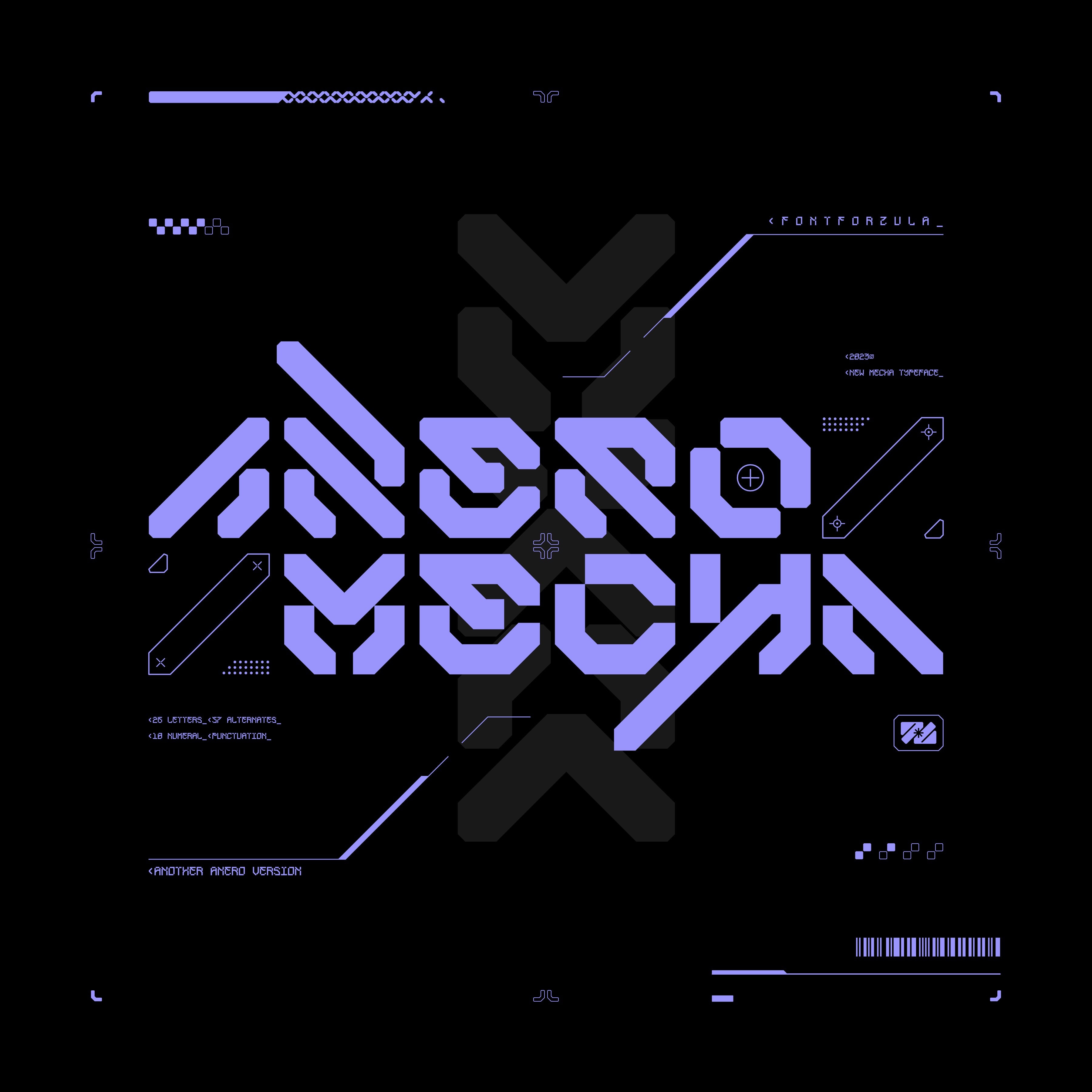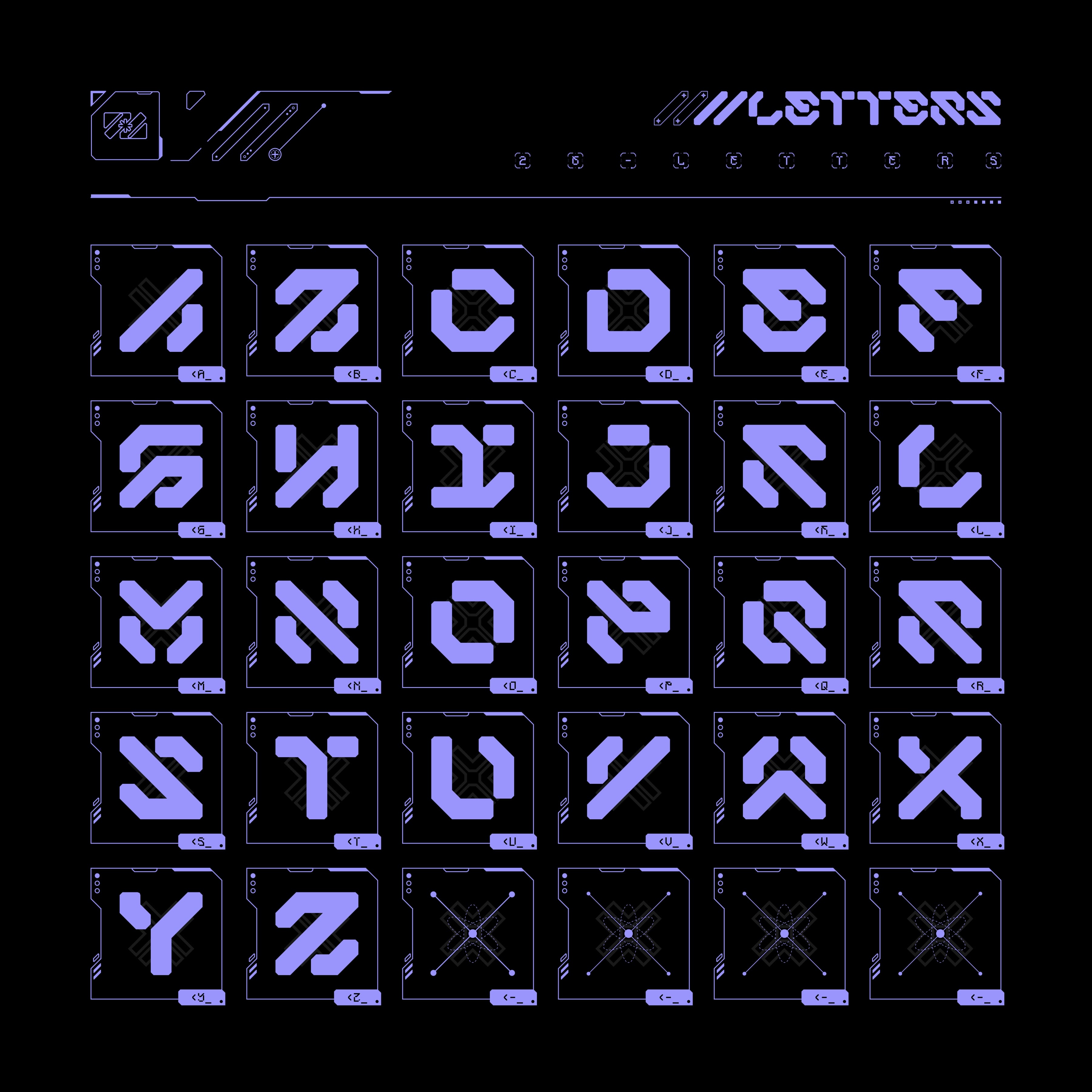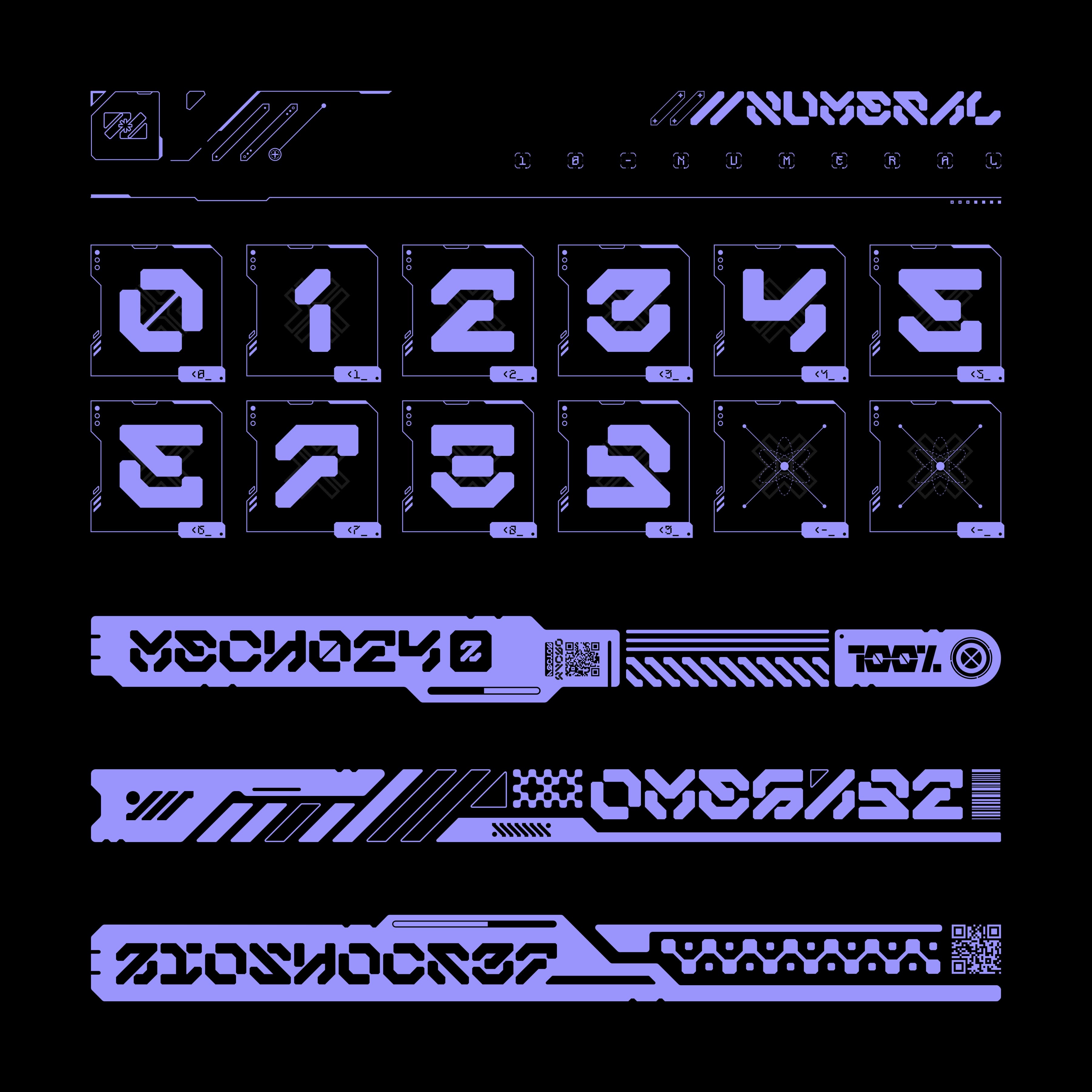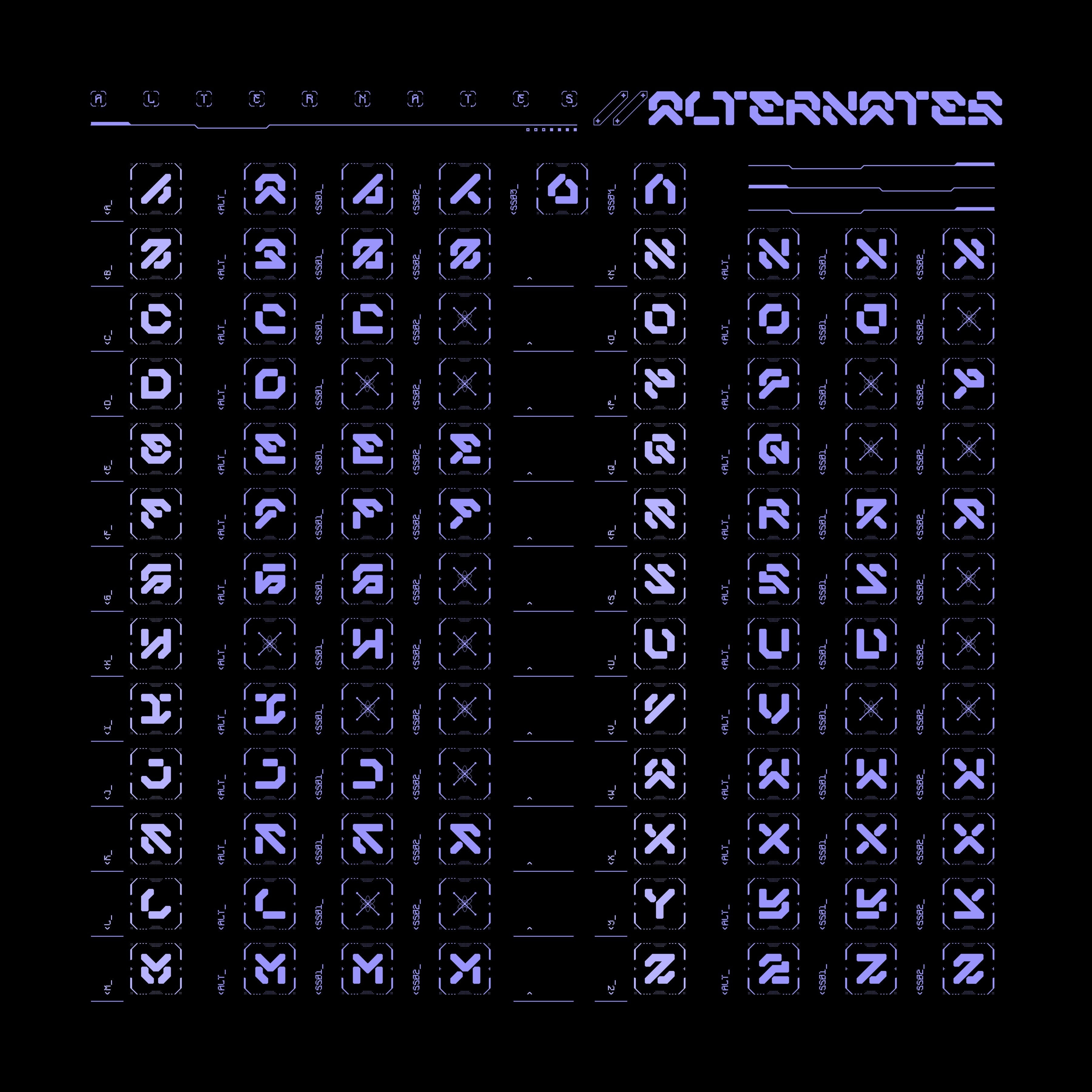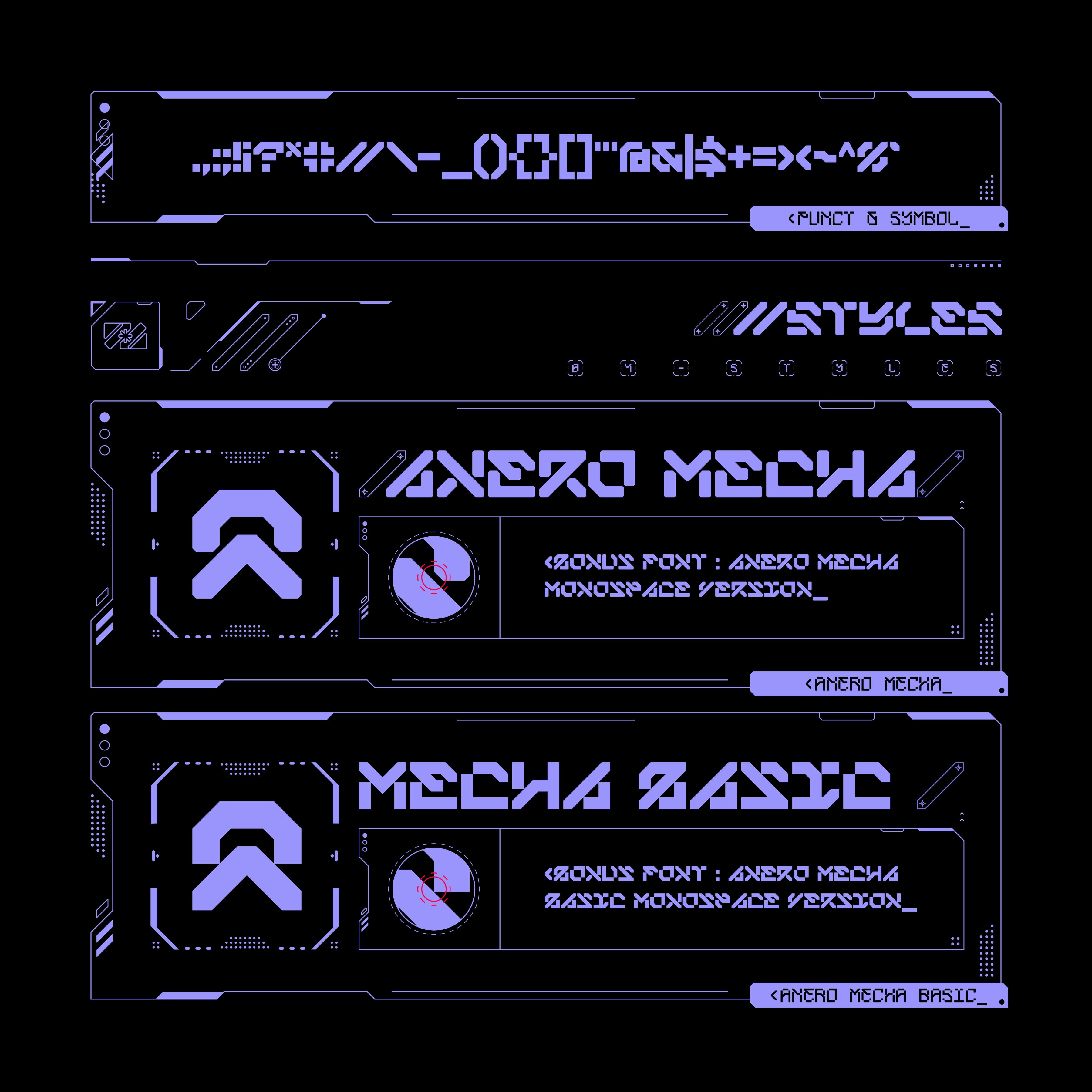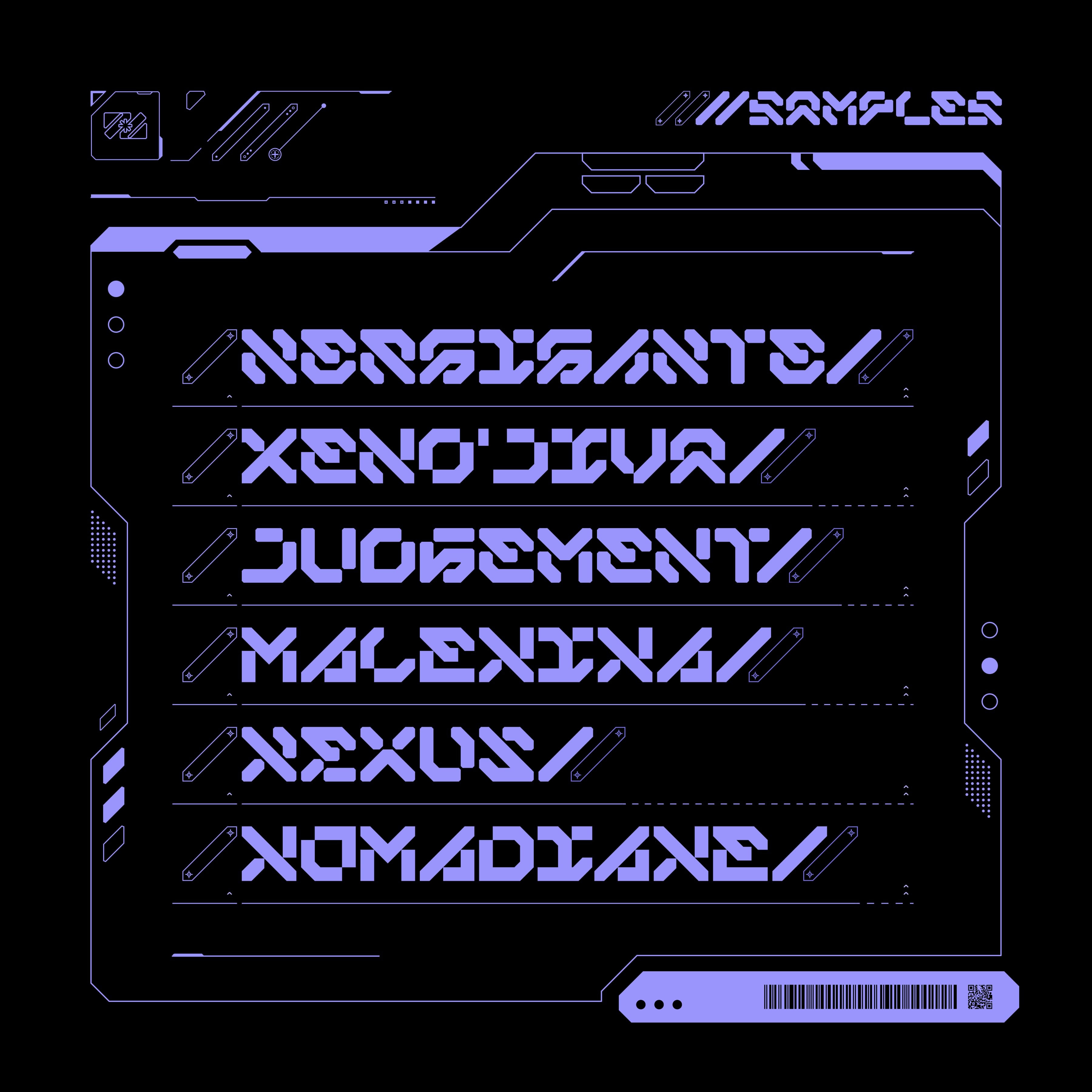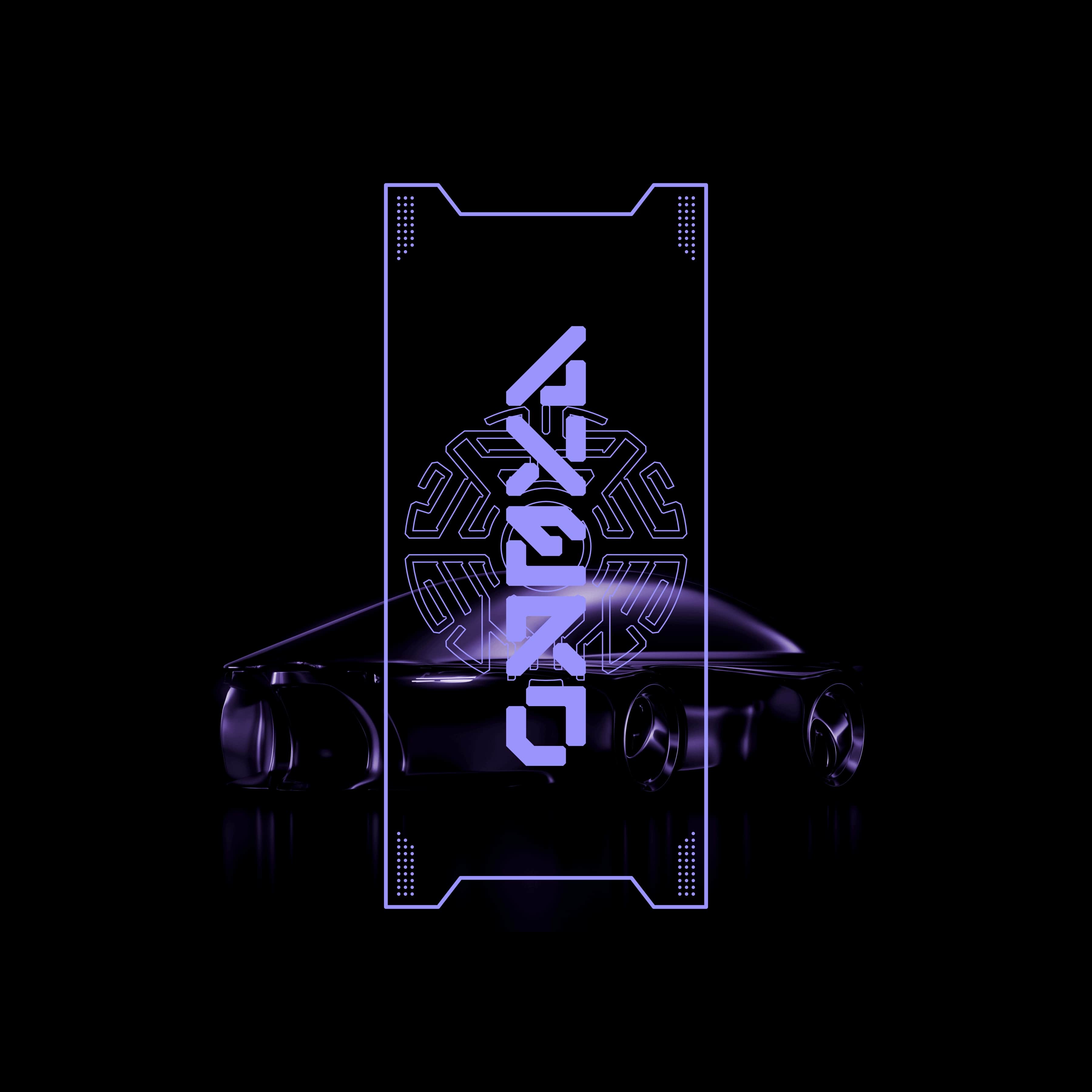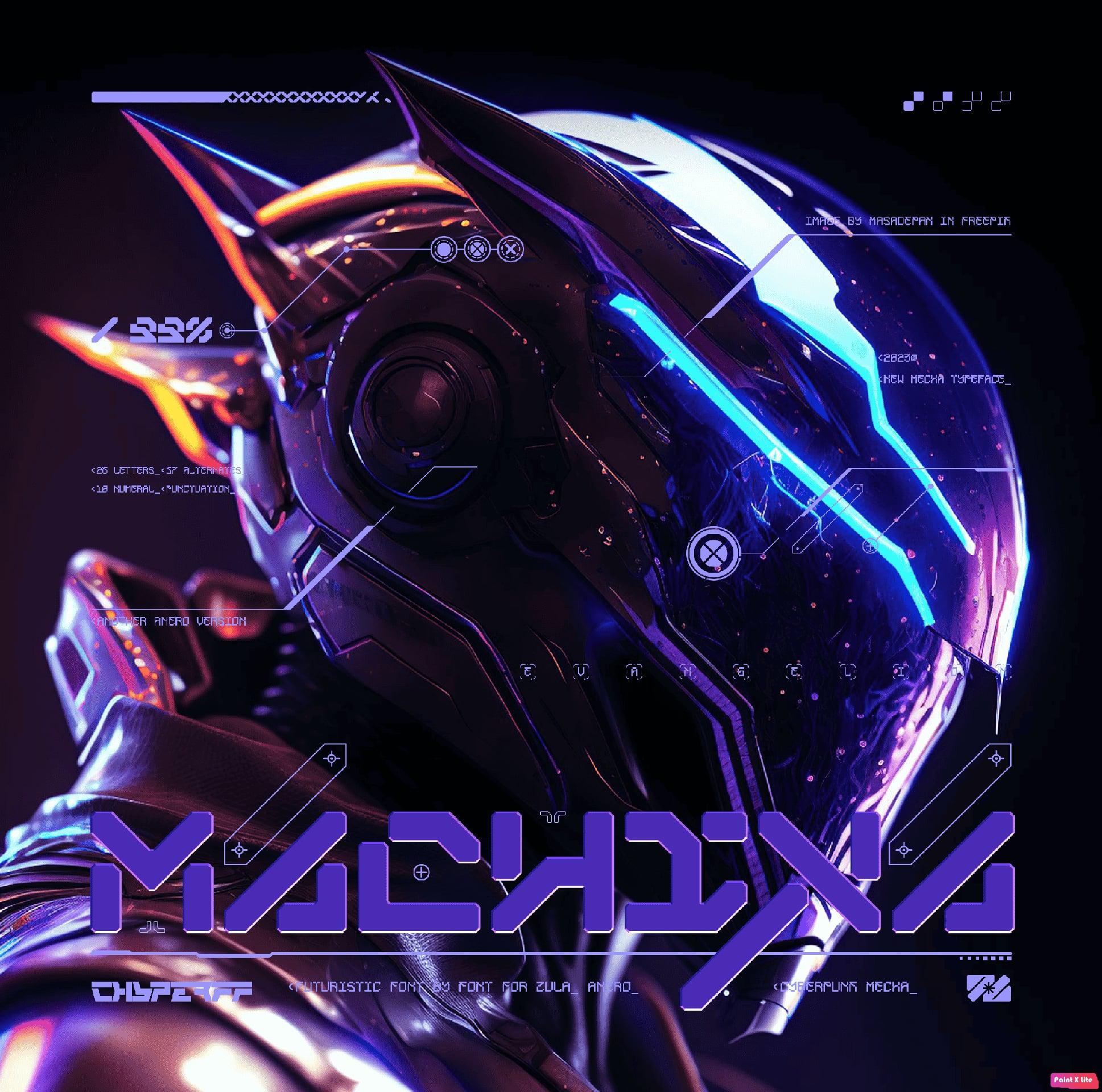
ANERO MECHA Typeface
The ANERO MECHA Typeface is a modern, tech-inspired font that comes in two versions, Anero Mecha and Anero Mecha Basic, with a bonus monospace version. It includes 26 letters, 58 alternative letters, 10 numerals, and a range of punctuation and symbols.
Ideal for futuristic and cyberpunk-themed design projects. Perfect for posters, branding, album covers, and digital art, ensuring a unique and versatile typographic expression with a wide range of alternative letters.